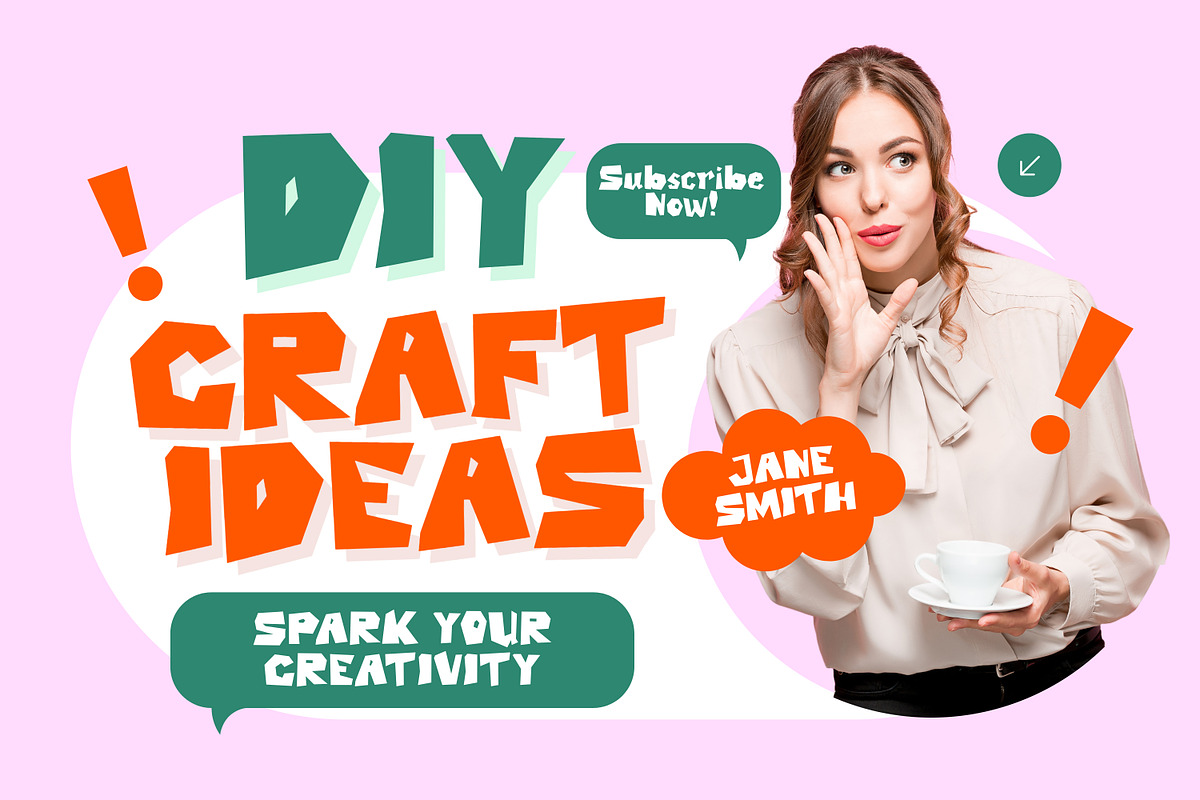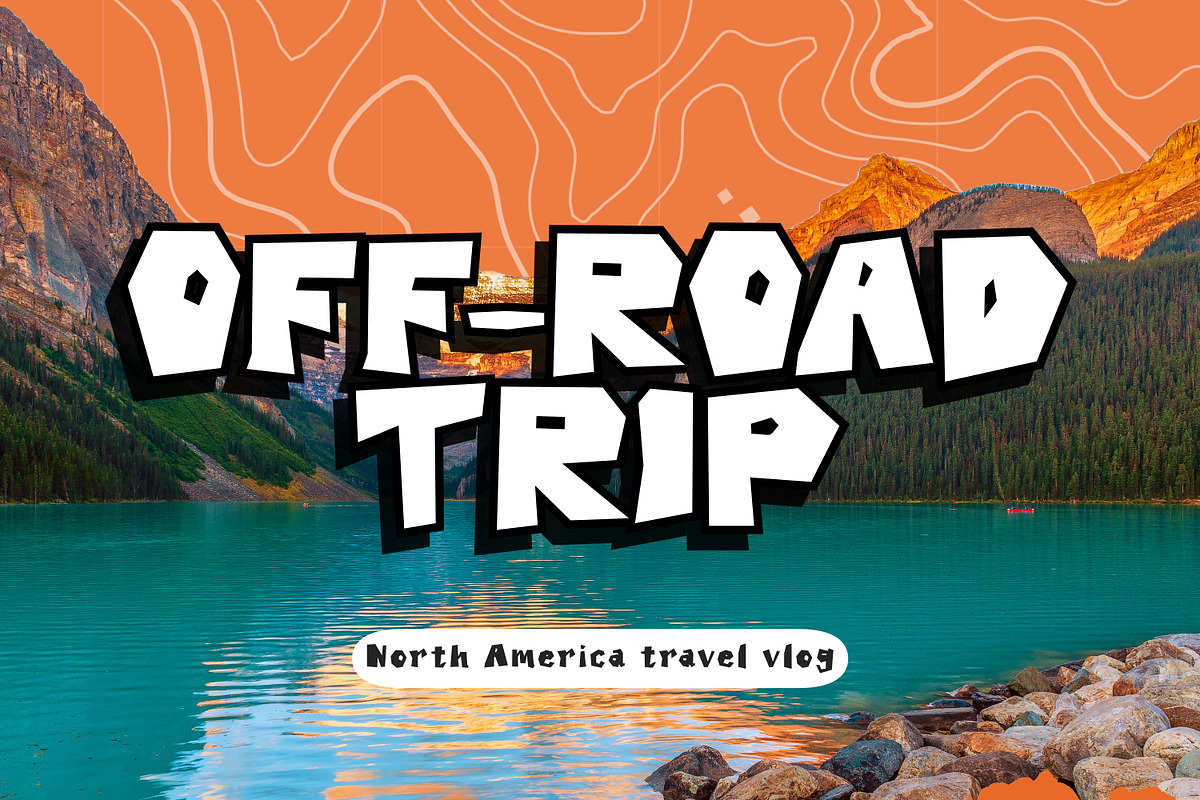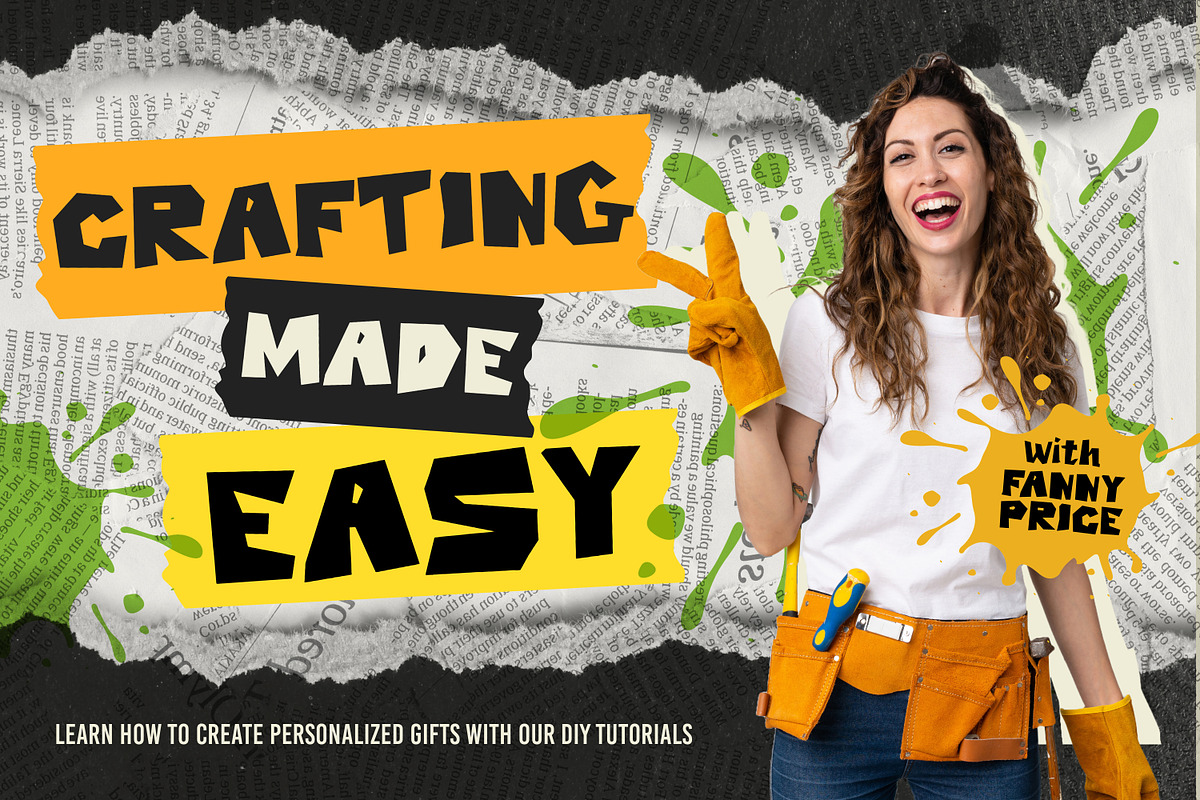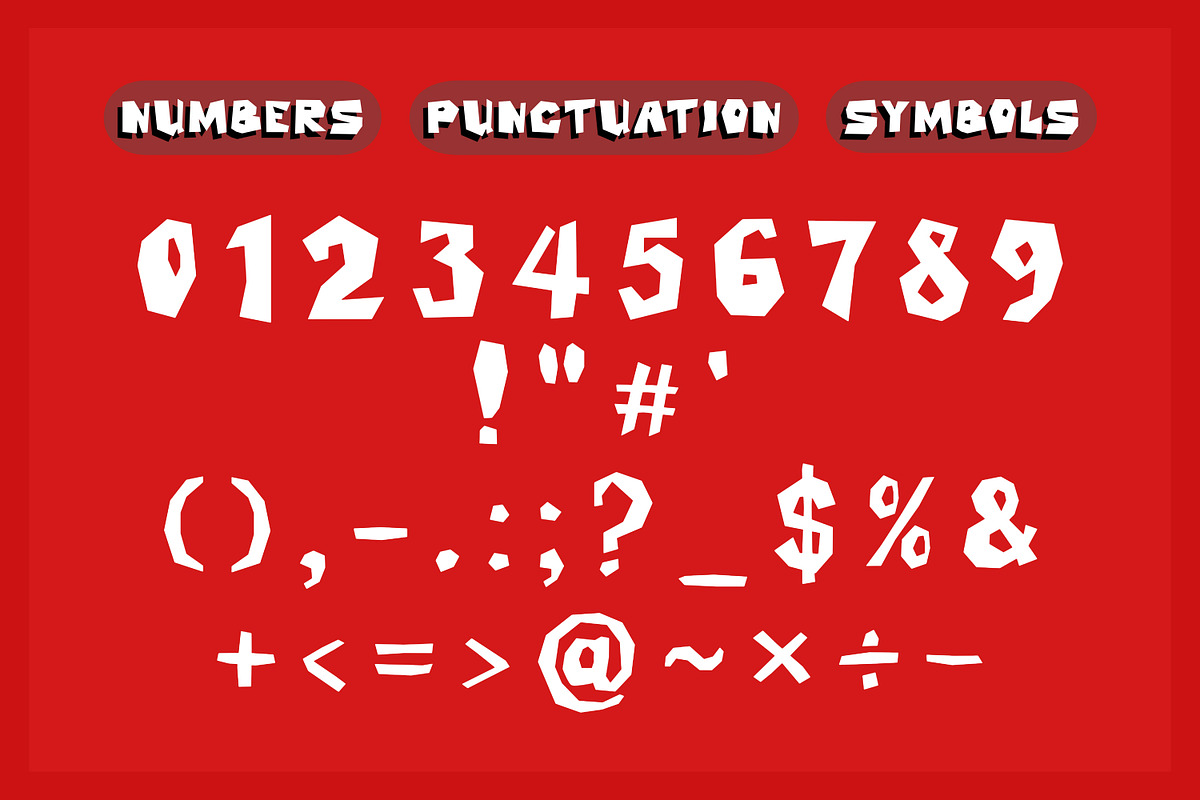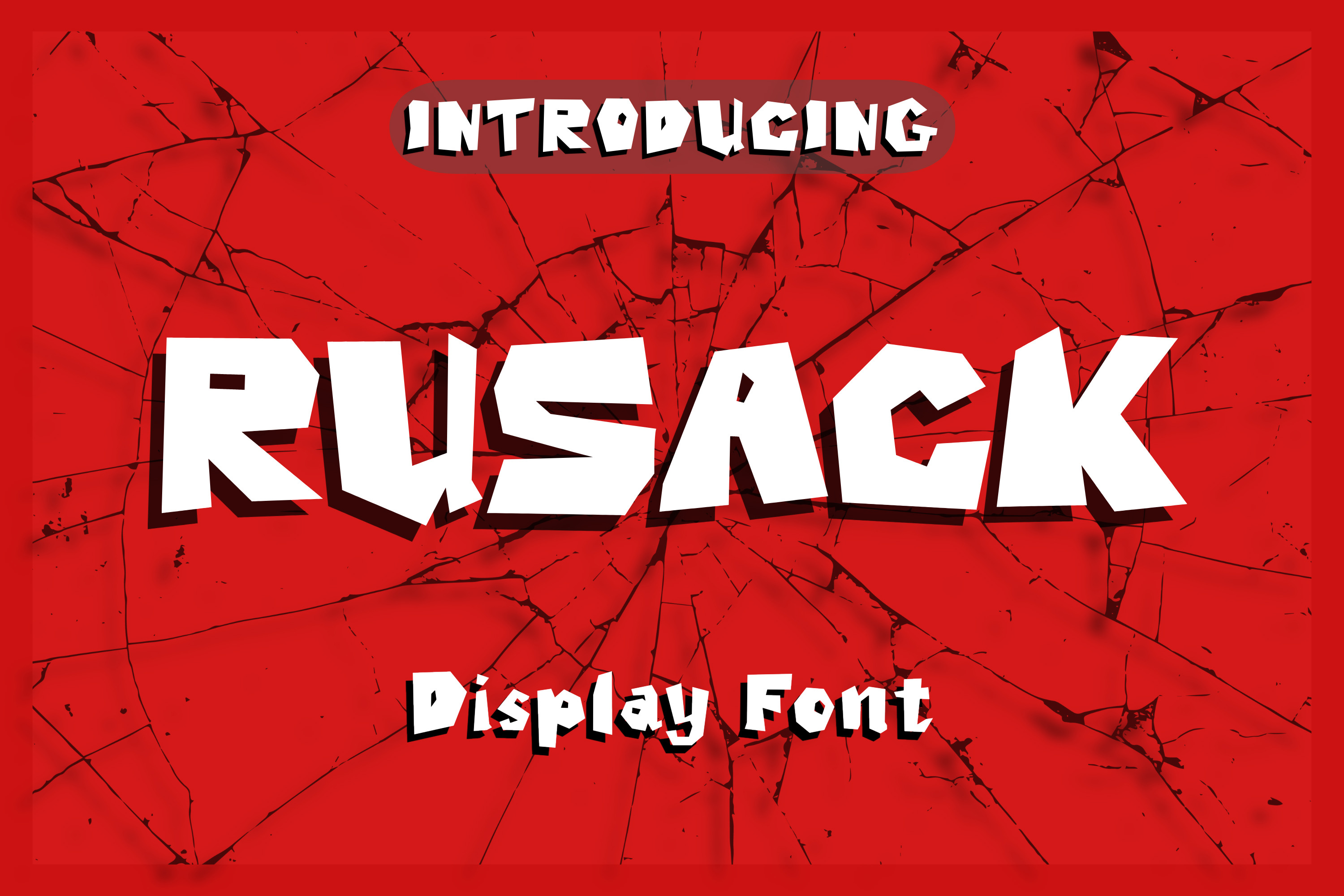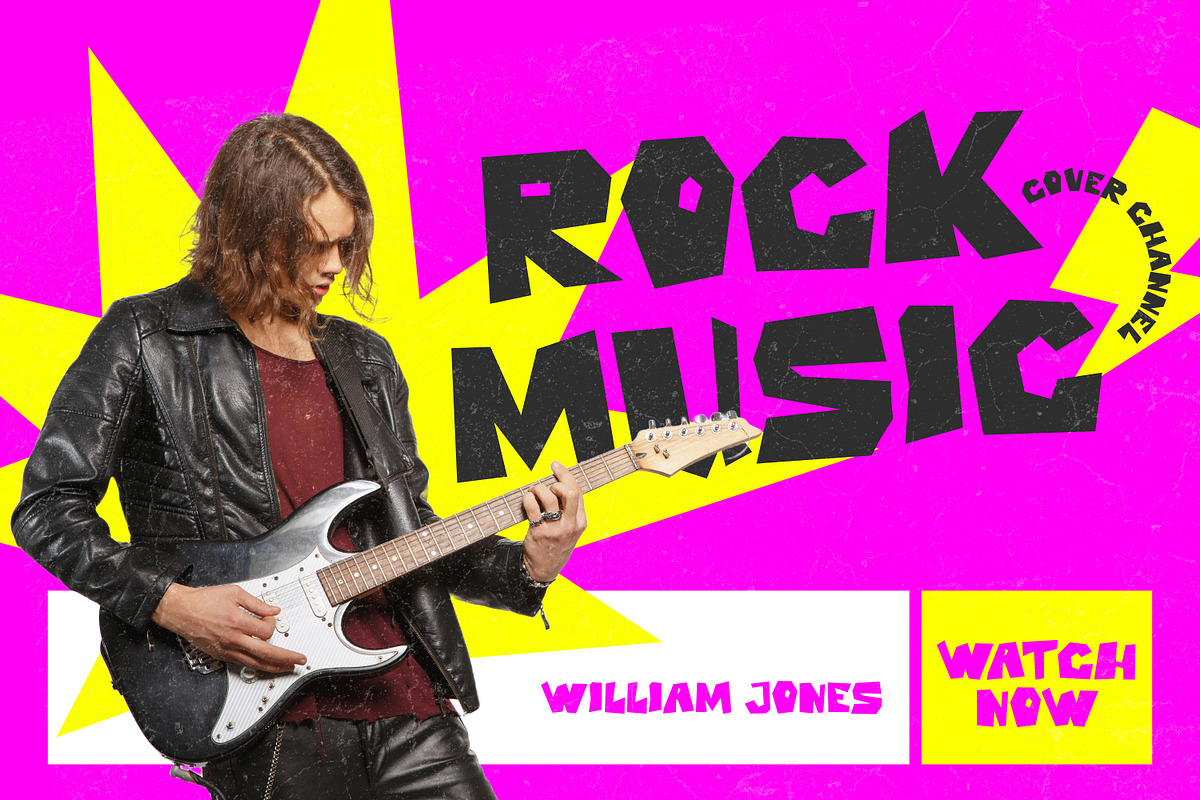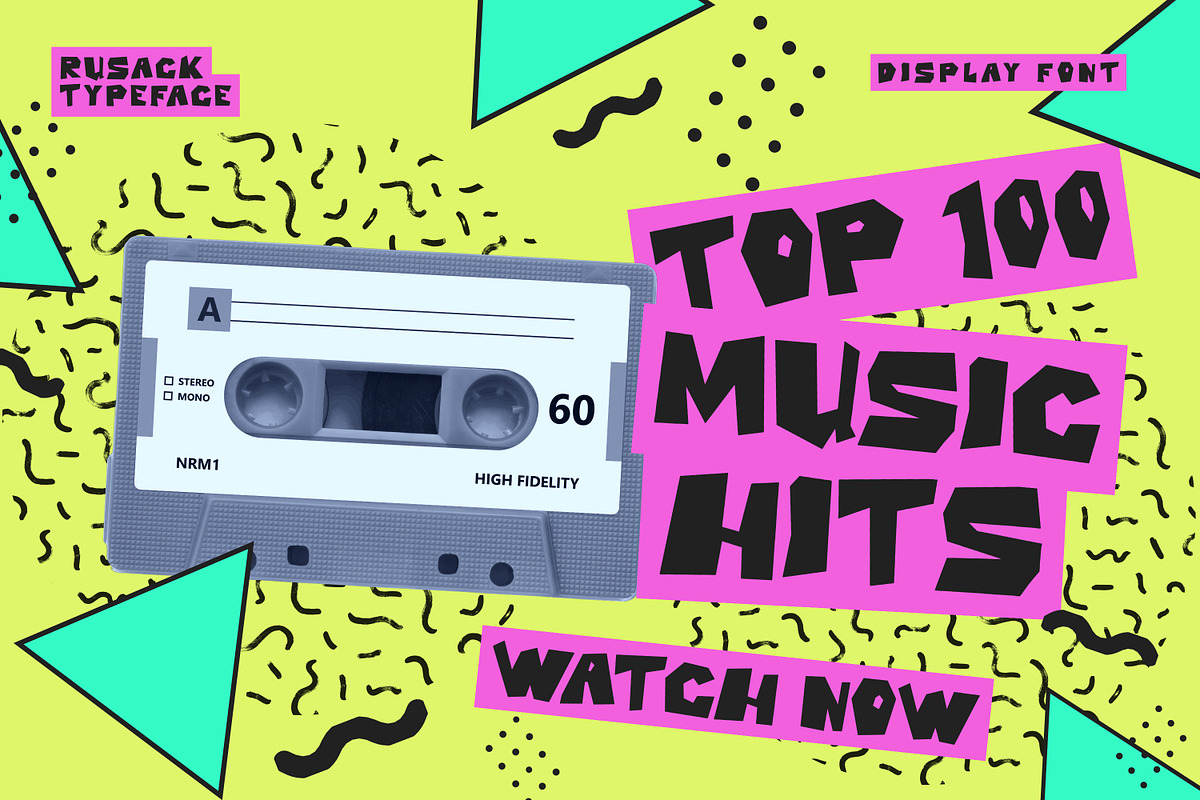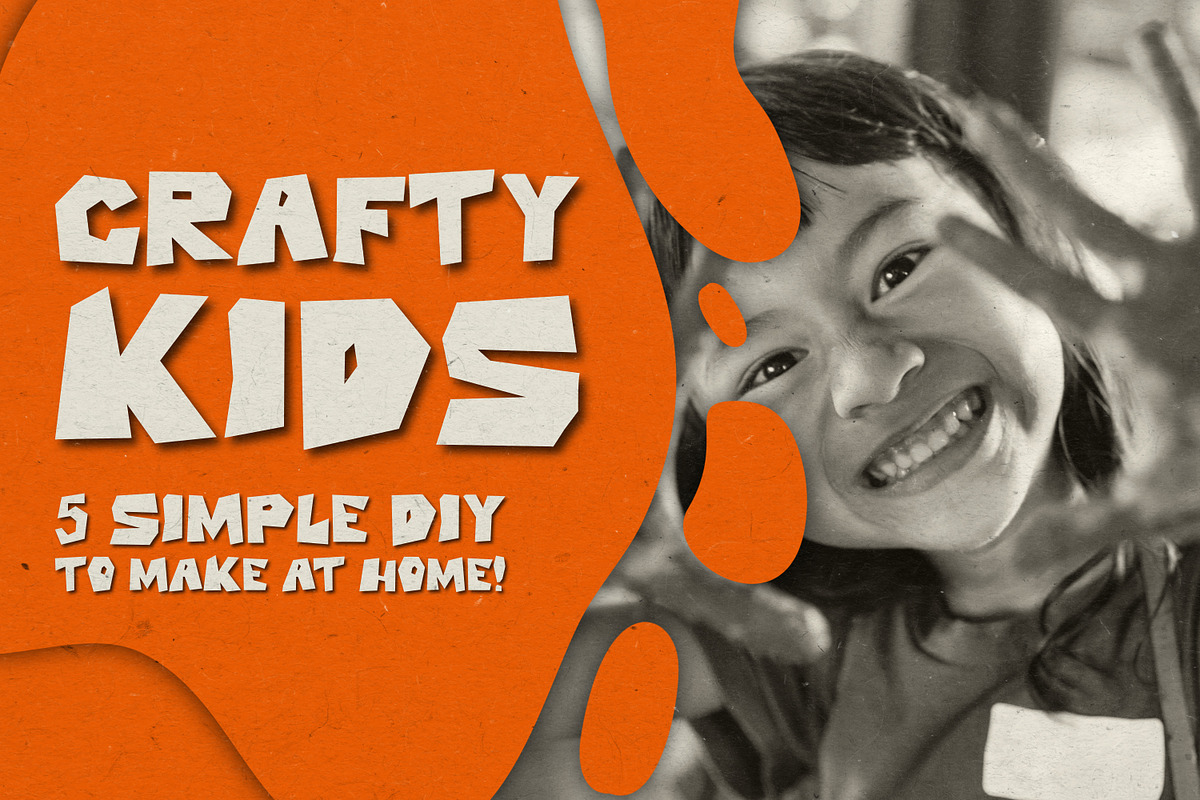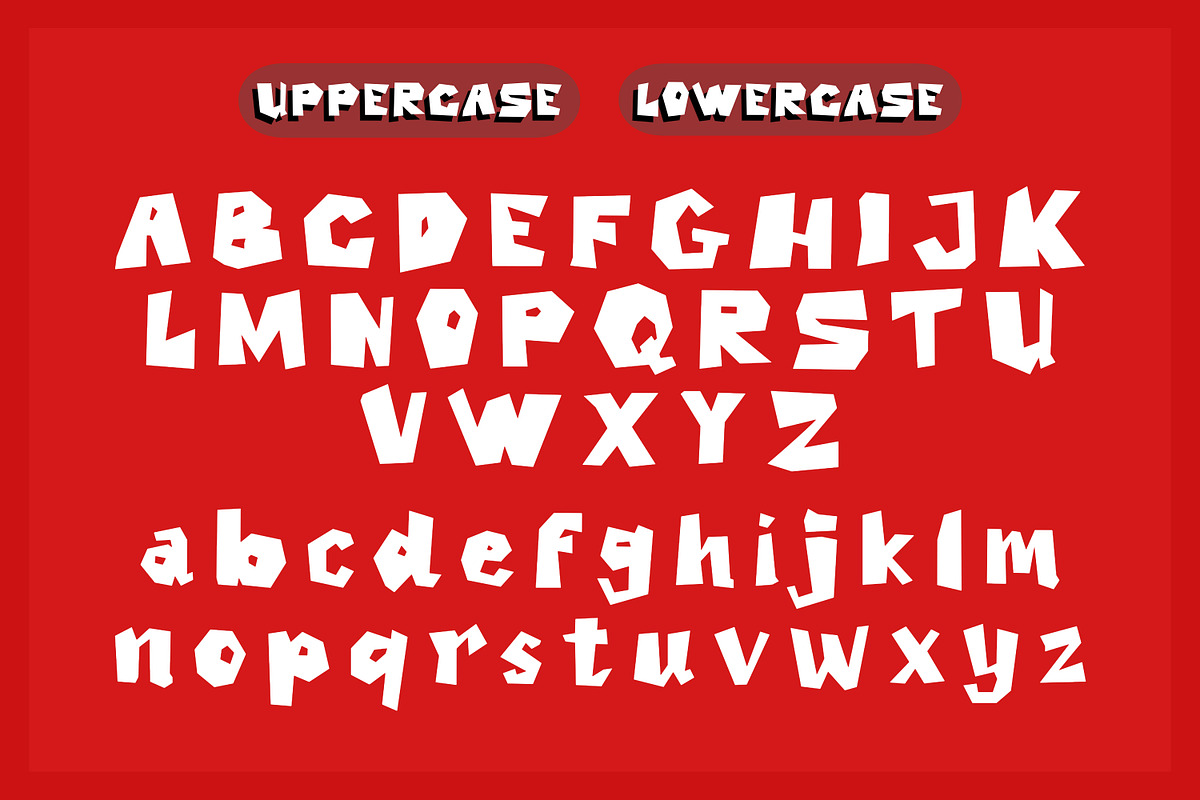
Rusack A Bold Shattered Display Font
Rusack is a powerful and aggressive display font engineered for impact. Characterized by sharp geometric angles and a distinctive shattered, cracked appearance, this typeface delivers a raw, rebellious, and high-octane energy to your designs.
Built for projects that refuse to blend in, Rusack is perfect for action-packed layouts. It is the ultimate font choice for intense esports branding, gaming channel logos, heavy metal band merchandise, hard-hitting movie titles, streetwear clothing lines, and bold event flyers.
Perfect For: Gaming logos, sports, album covers, action poster designs, industrial themes, and edgy headers.
Standard Character Set (Uppercase & Lowercase)